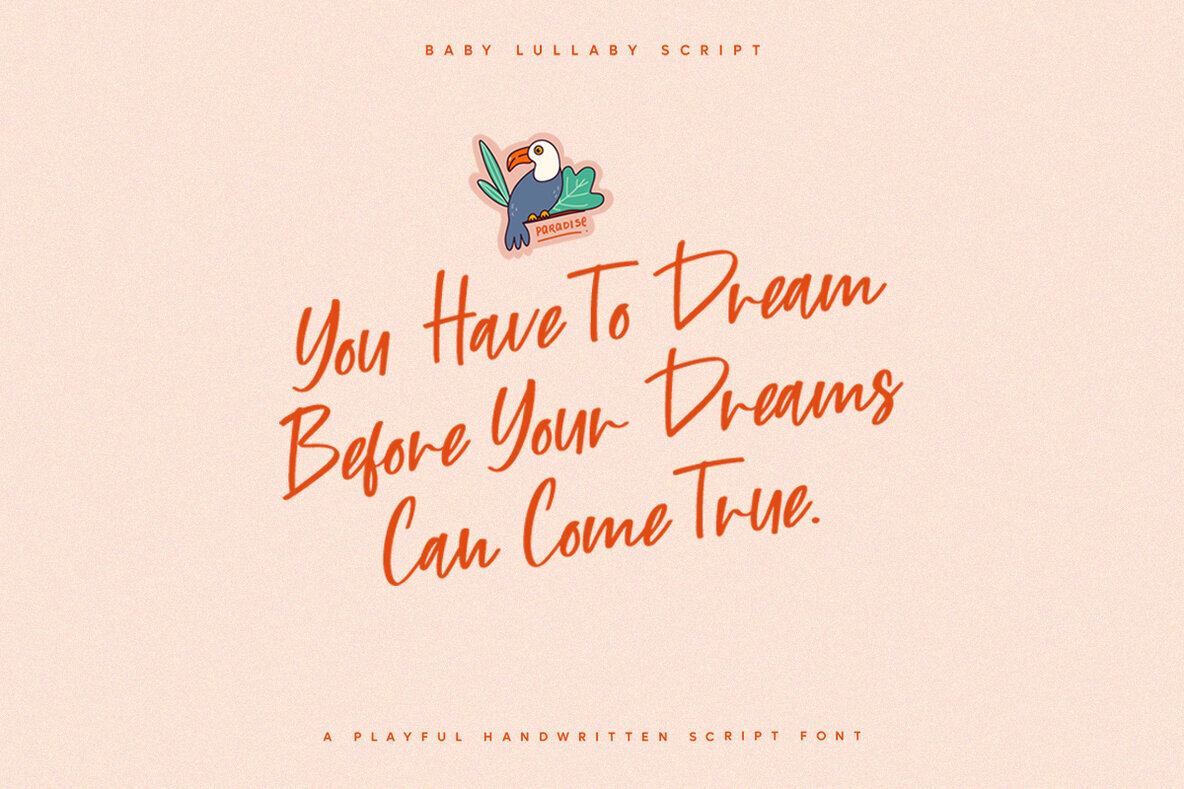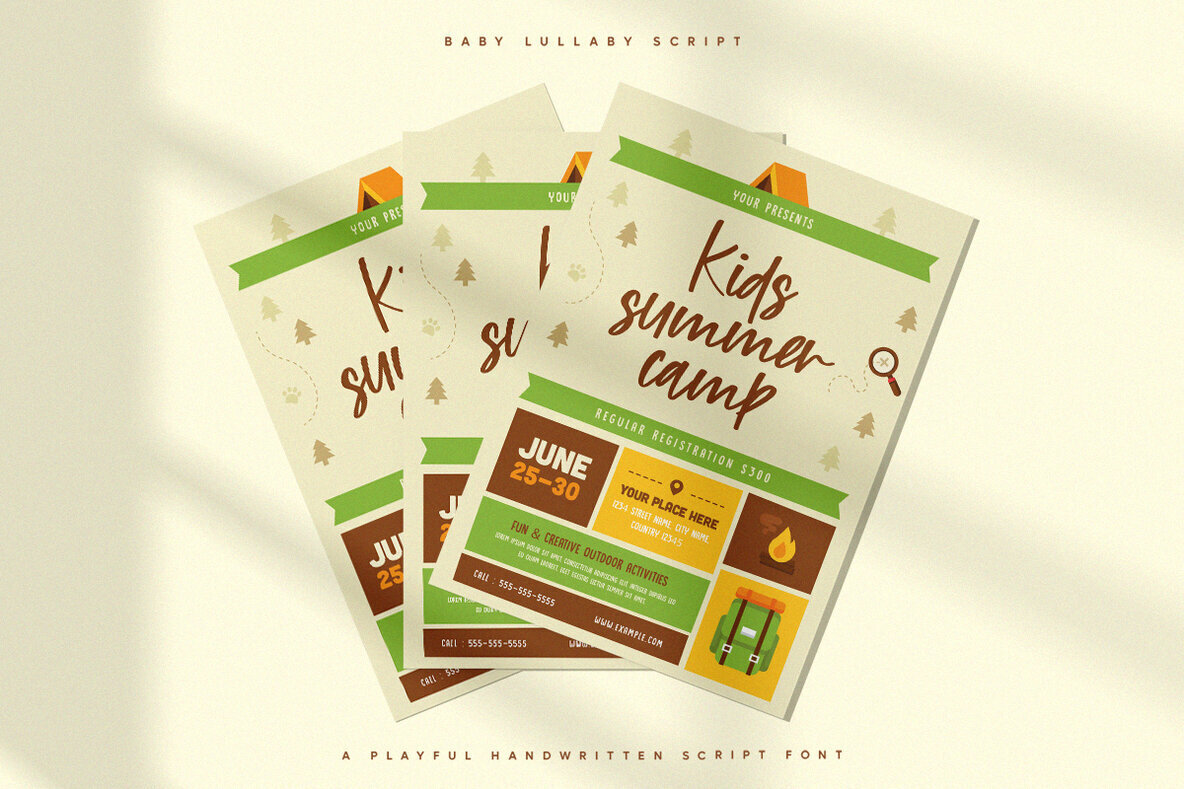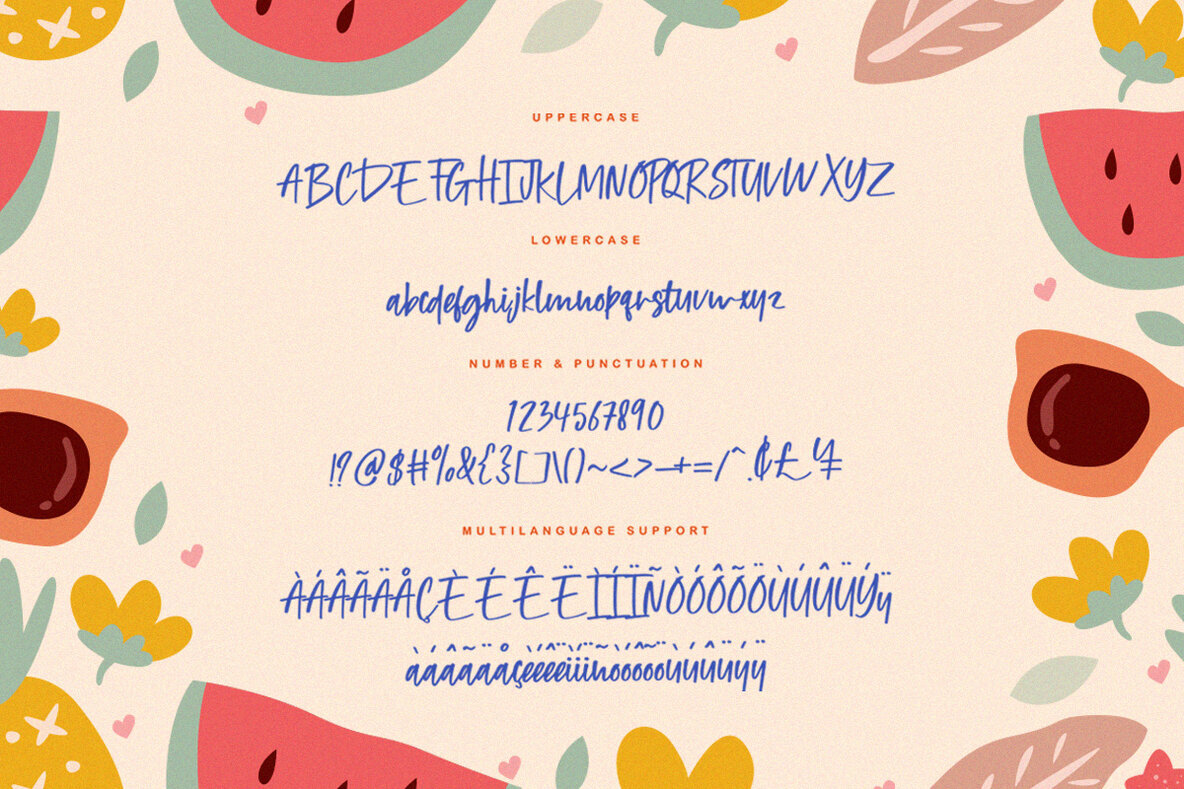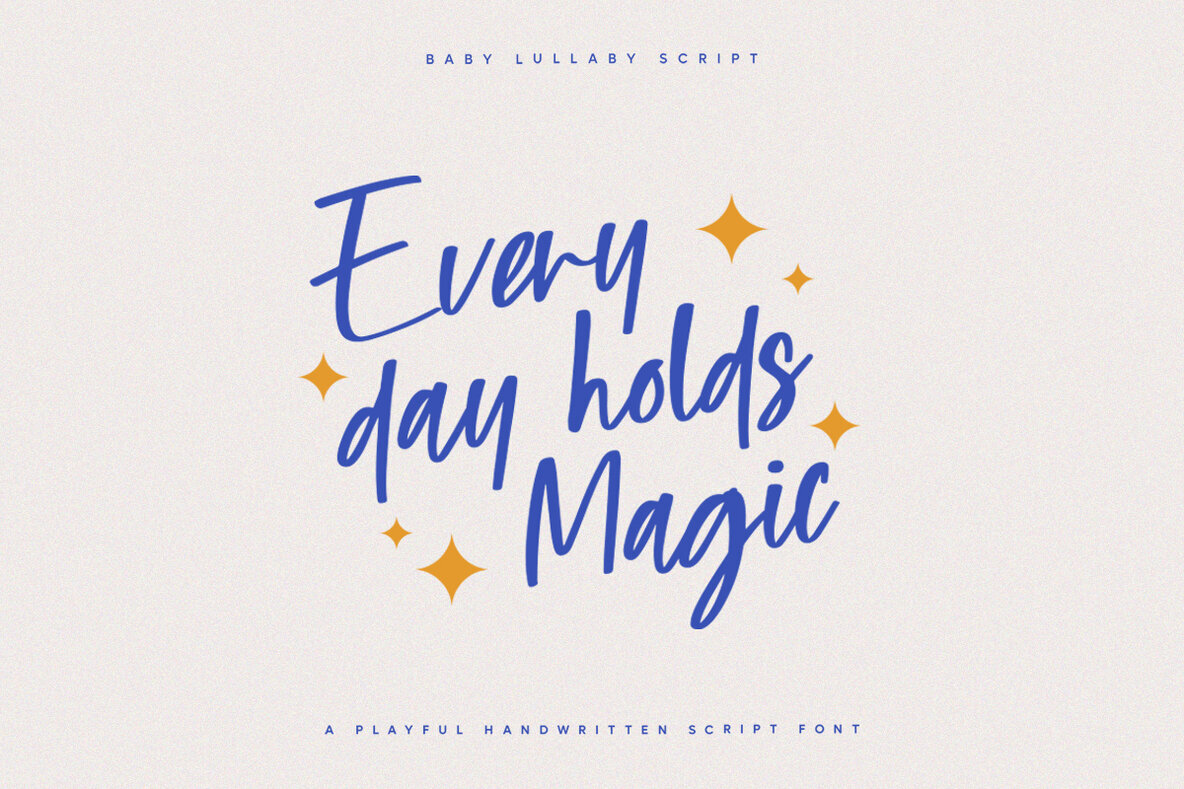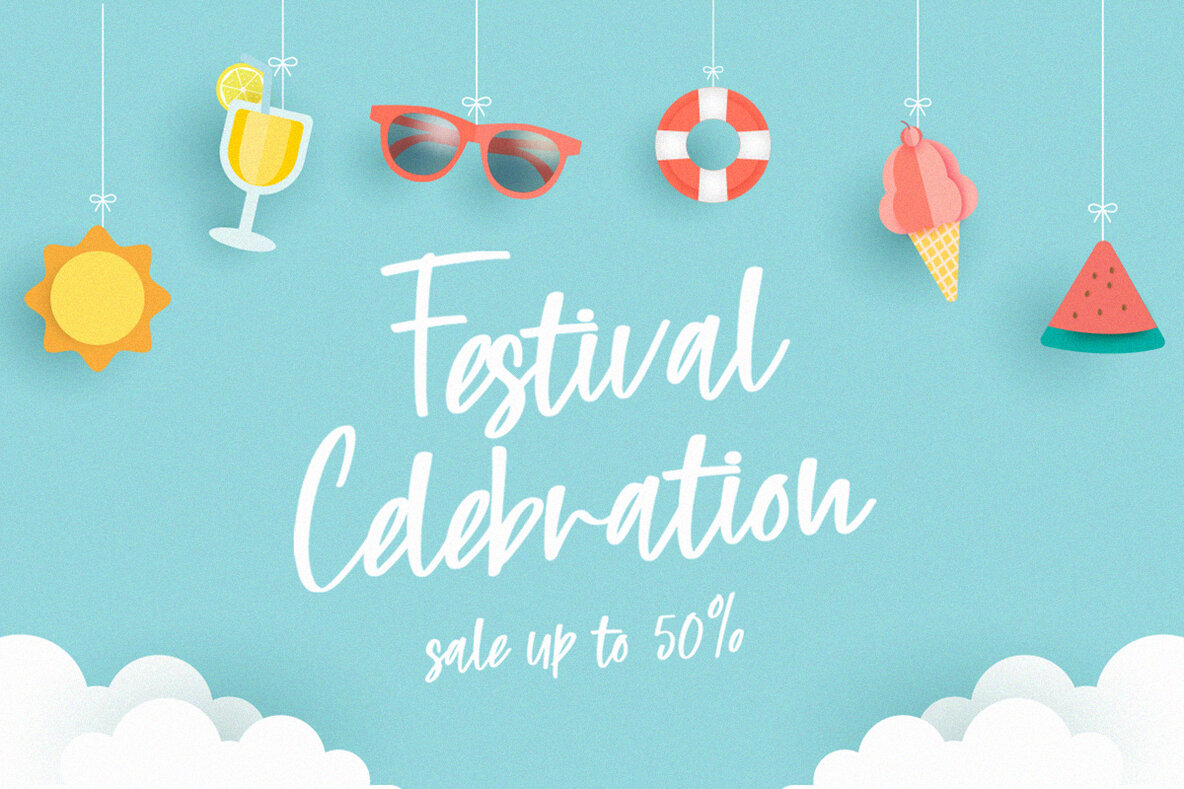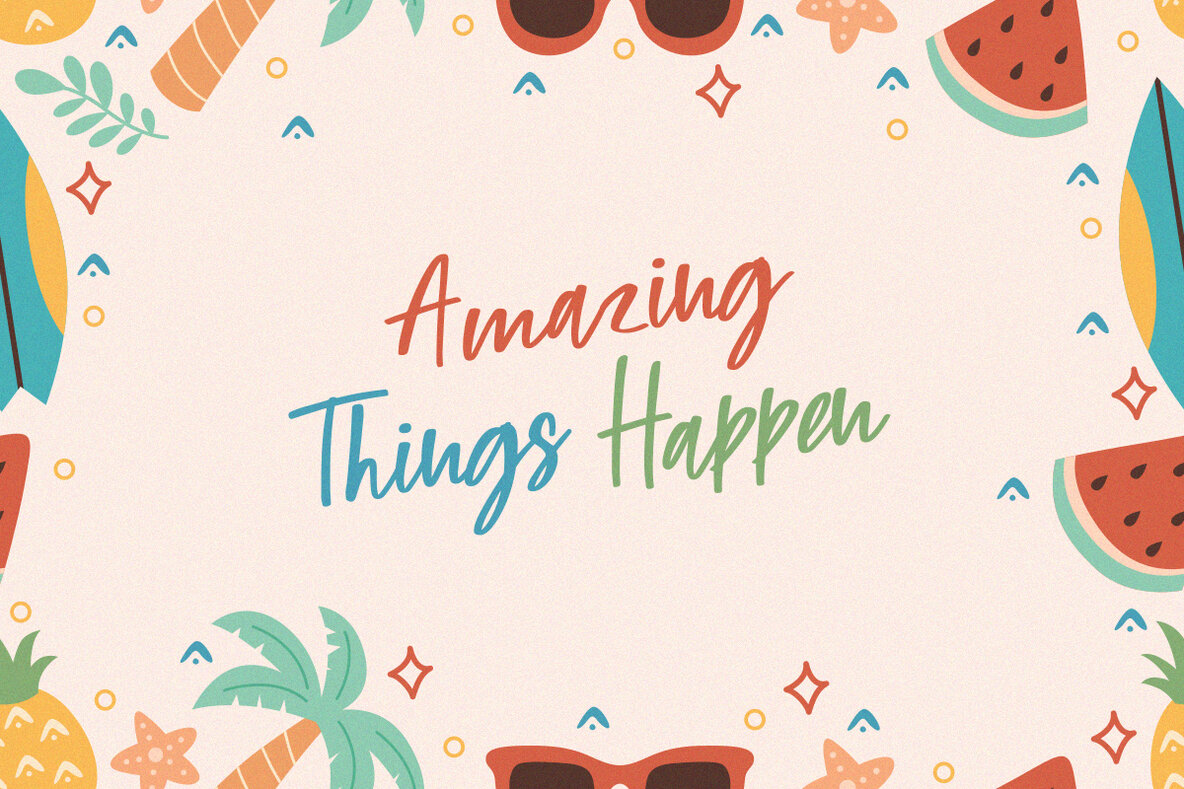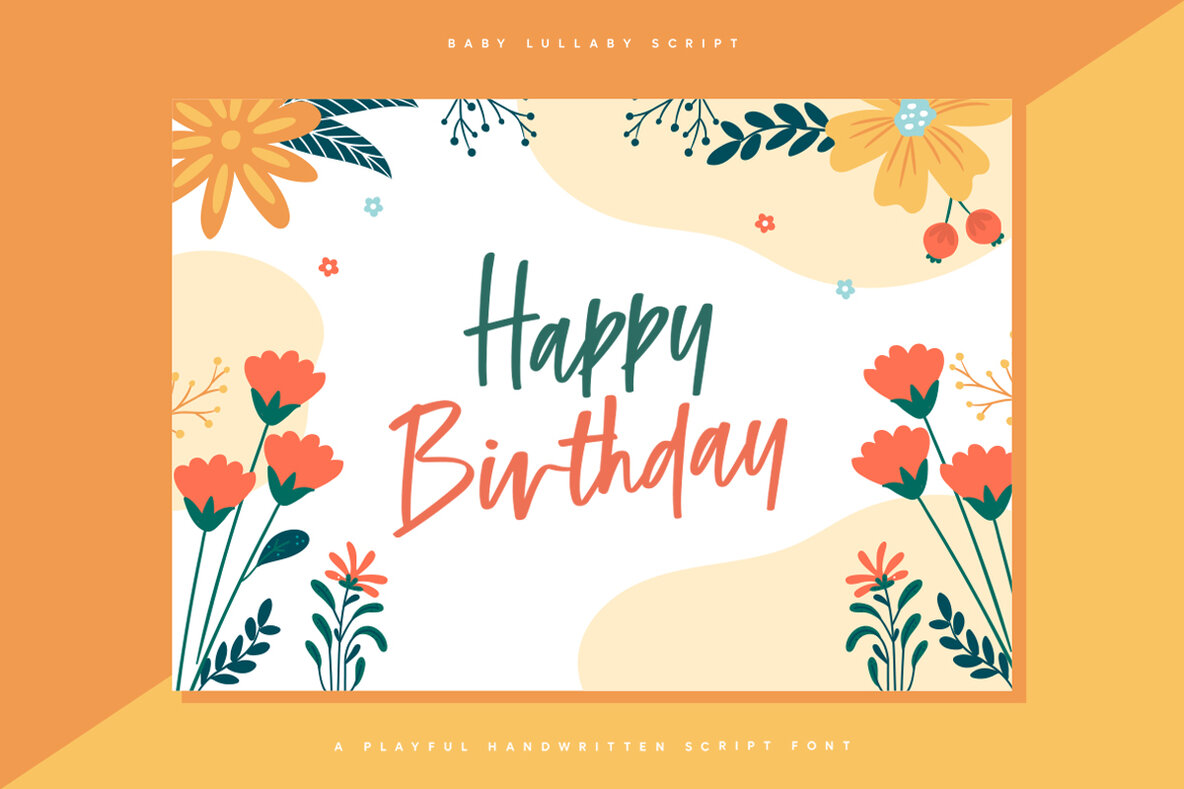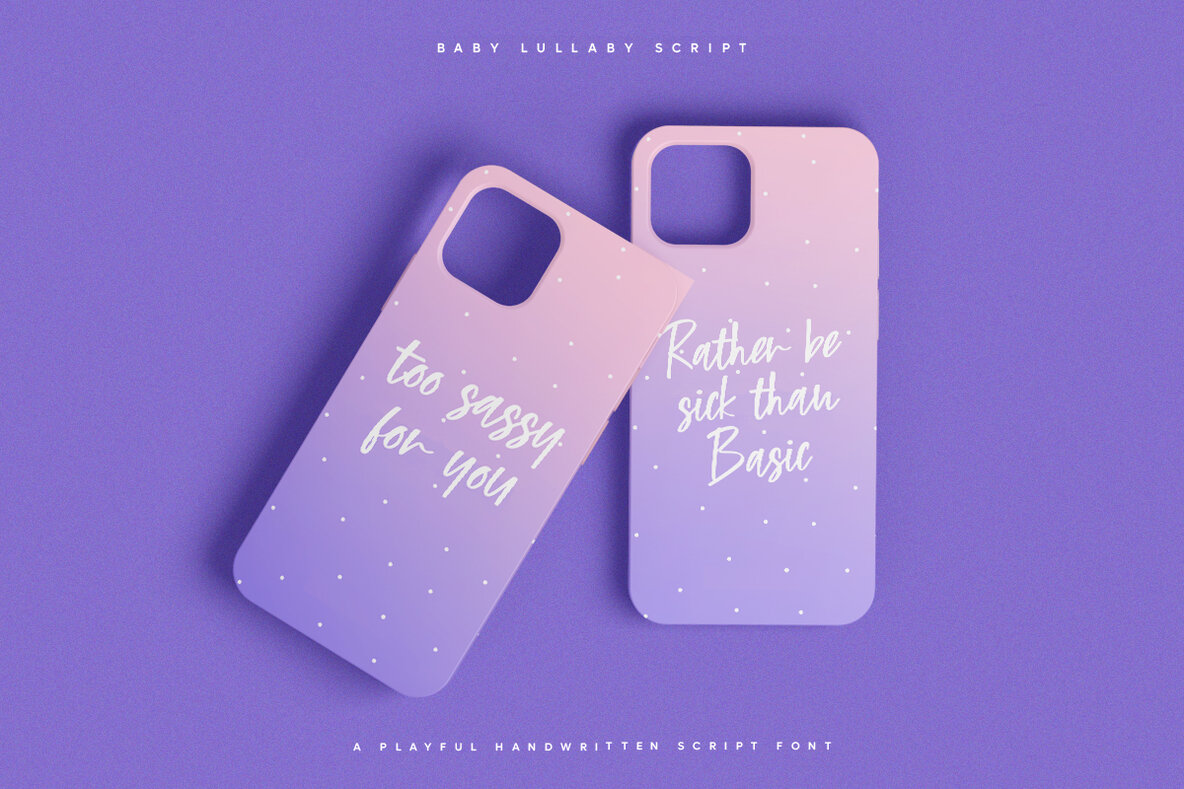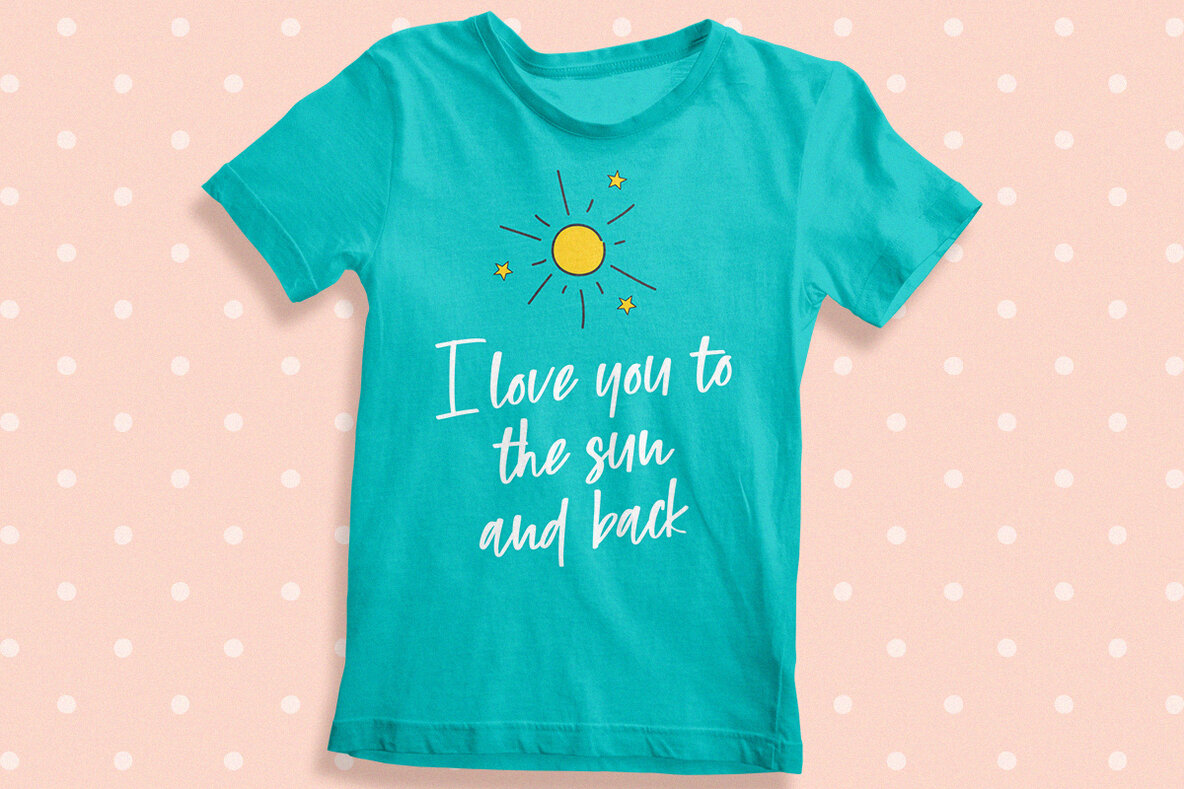
Baby Lullaby Font
Baby Lullaby
Embrace the whimsical charm of Baby Lullaby, a playful script font that captures the essence of natural handwriting. Ideal for projects that call for warmth and personal touch, its gentle curves and smooth lines make it a versatile choice.Baby Lullaby: A Playful Script Inspired by Handwriting